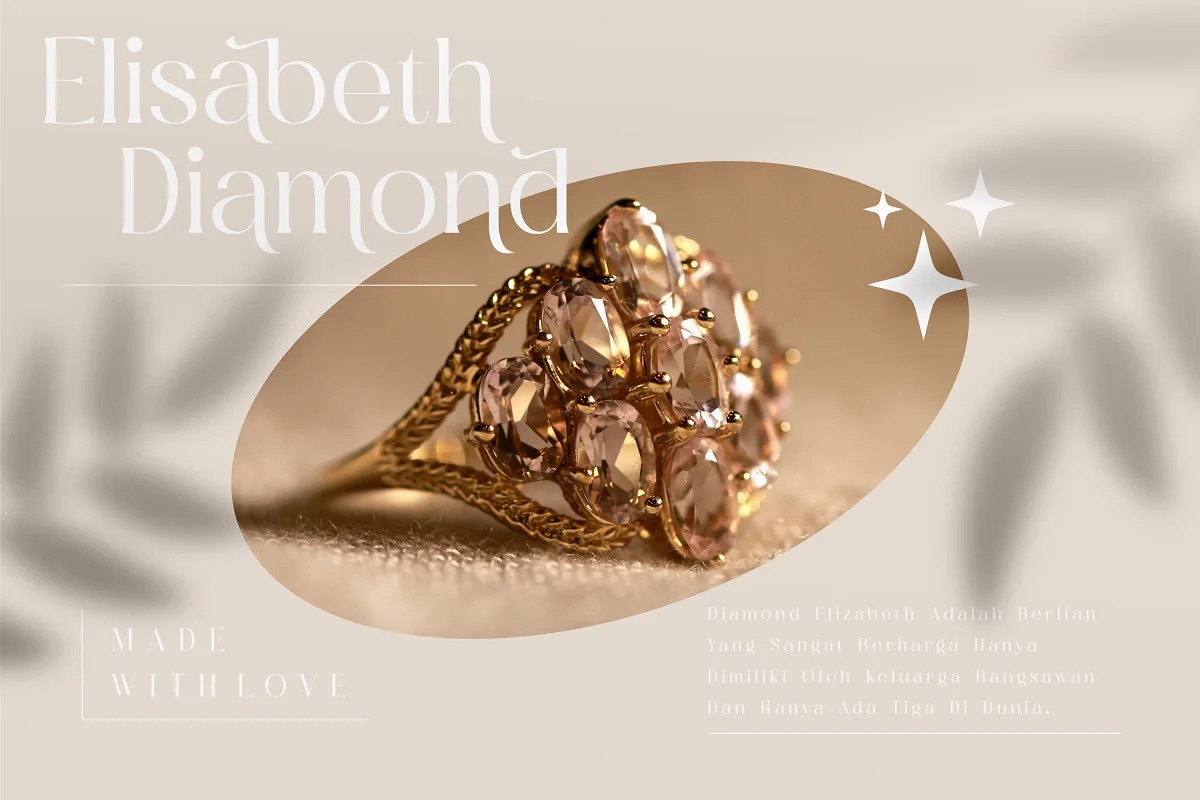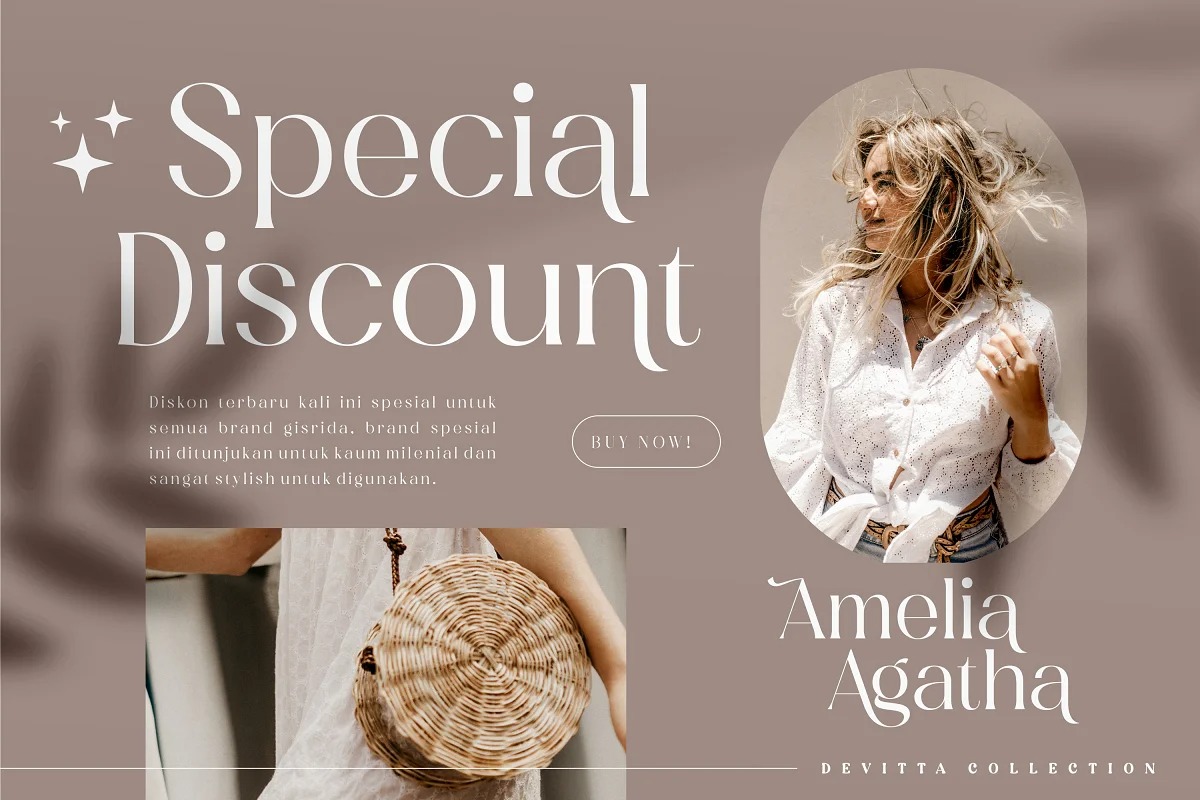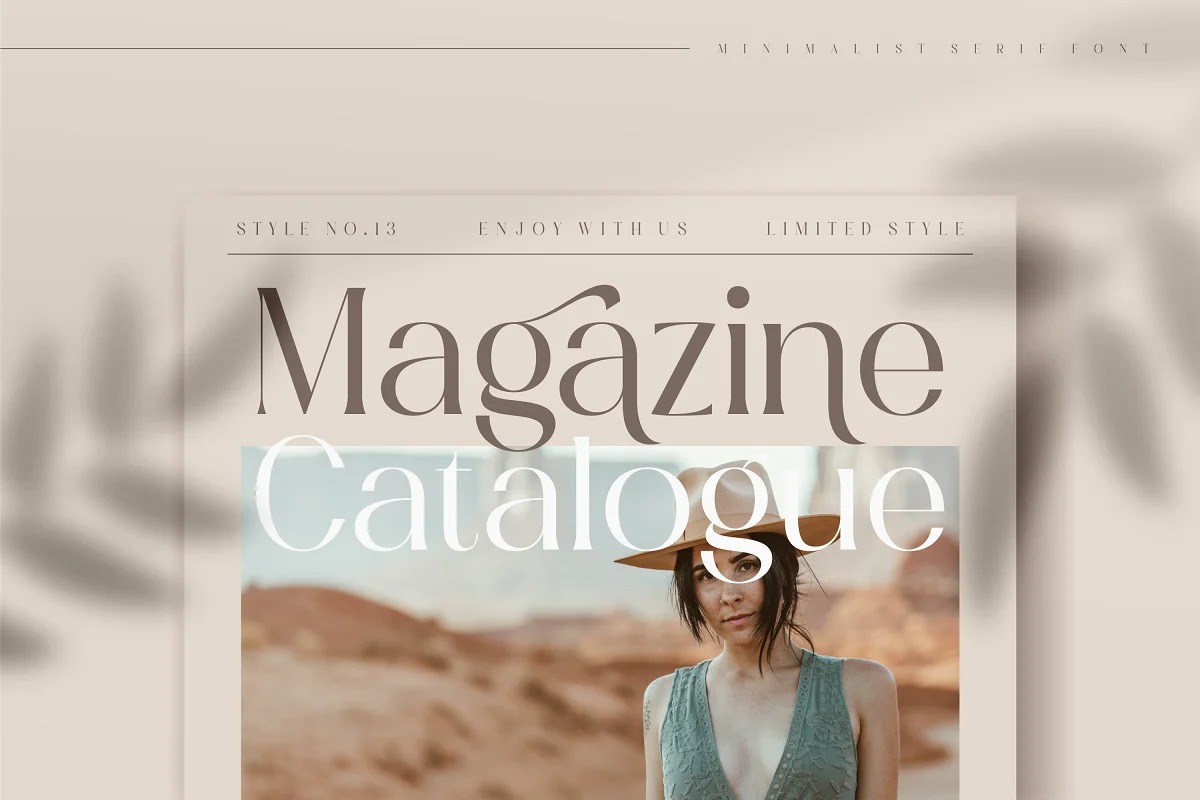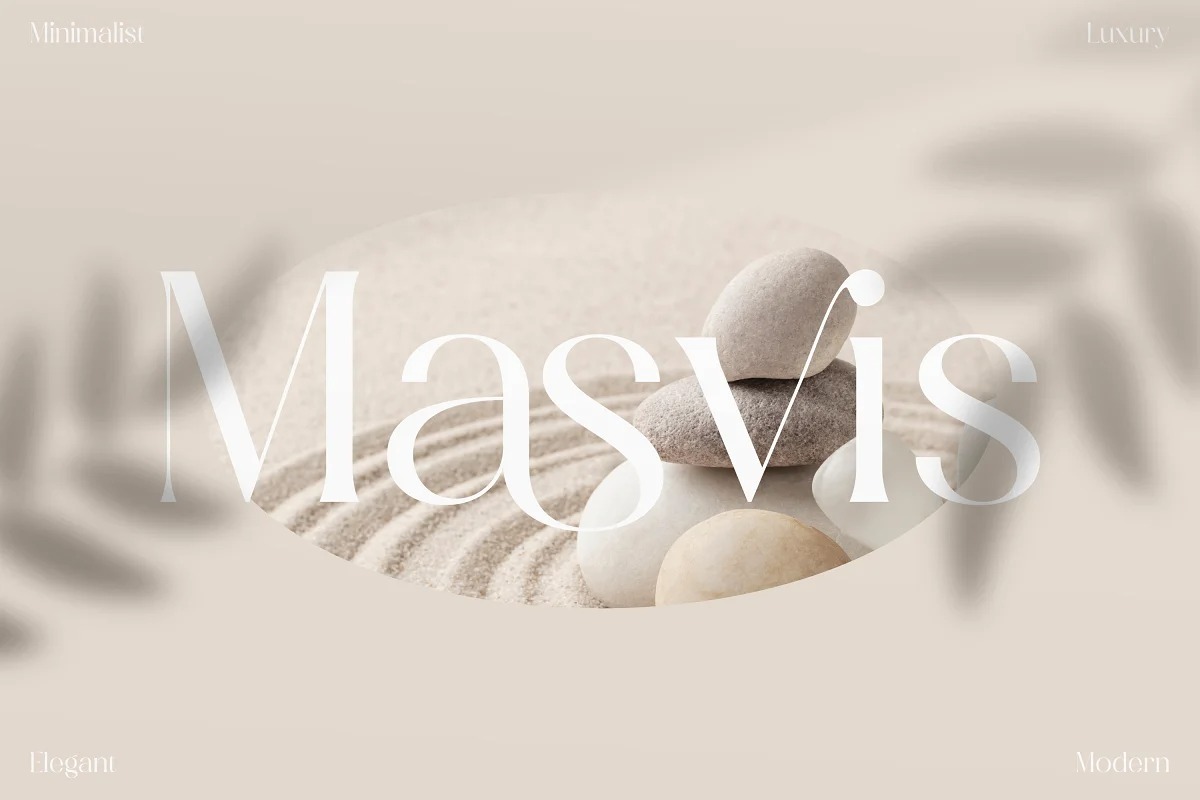
Masvis Serif Font
This is a serif typeface, it has both modern and retro look. Masvis also includes a bunch of alternates characters and multilingual support. This typeface is perfect for an elegant & luxury logo, book or movie title design, fashion brand, magazine, clothes, lettering, quotes, and so much more.